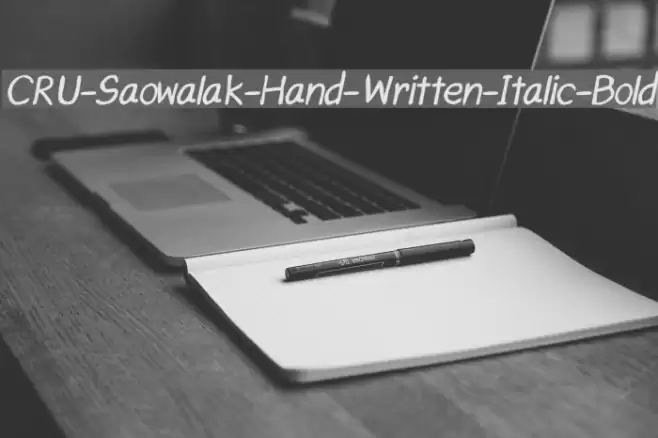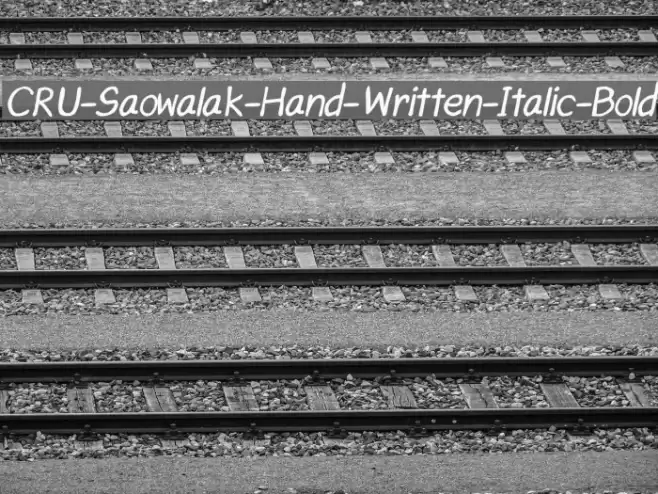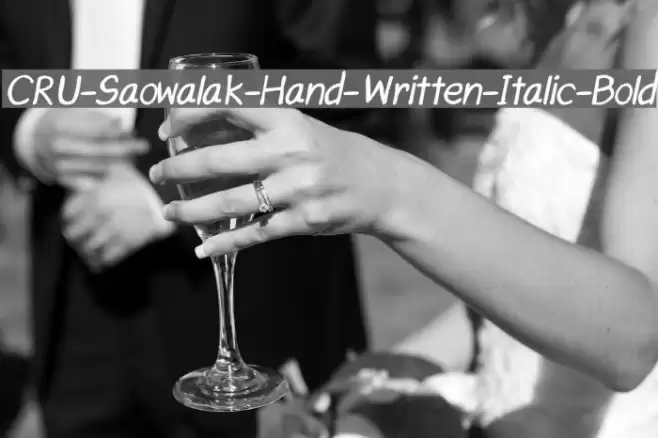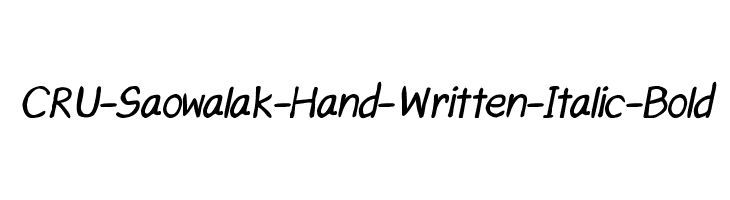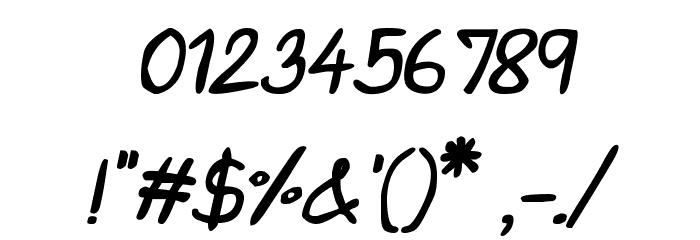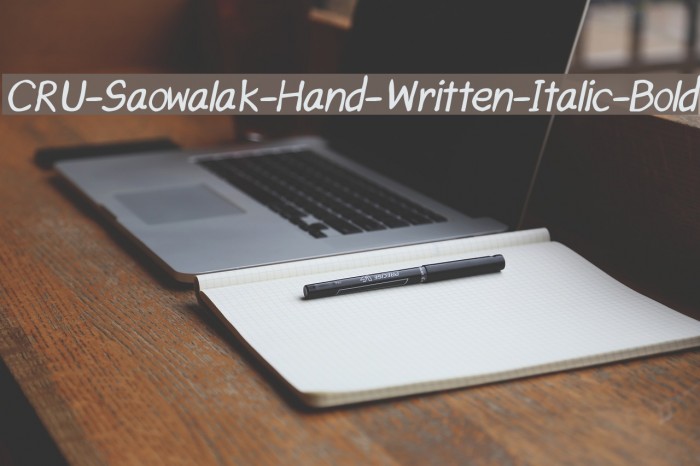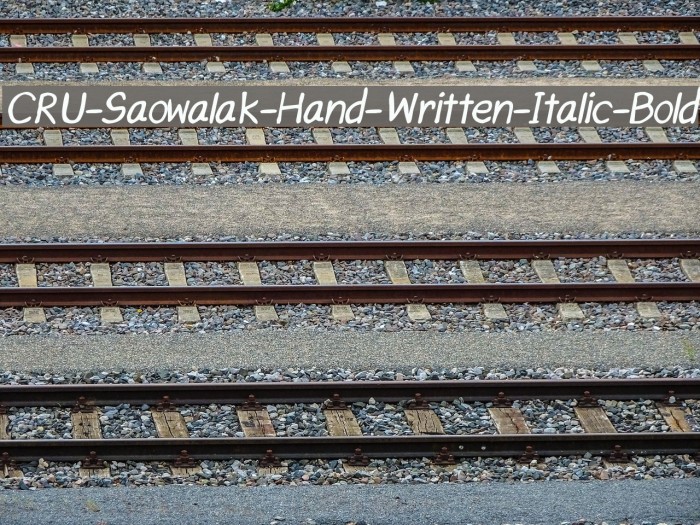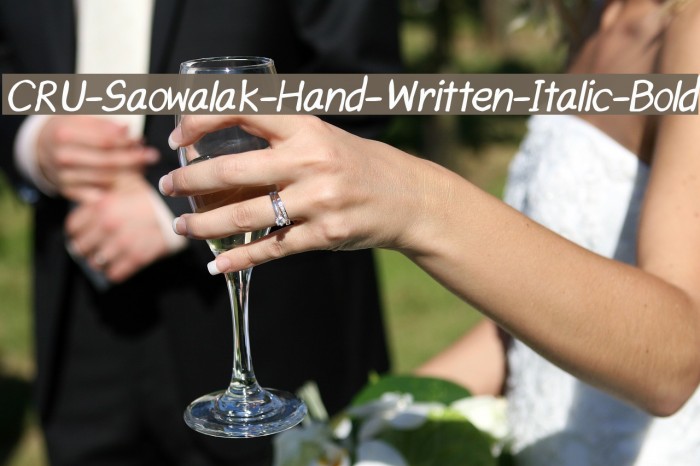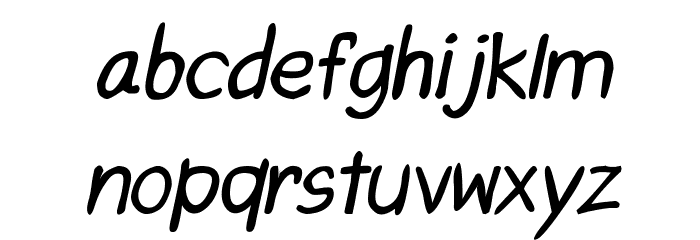
CRU-Saowalak-Hand-Written-Italic-Bold Font
CRU-Saowalak-Hand-Written-Italic-Bold Description
This font exhibits a casual, handwritten style with a playful and informal appearance. The letters are slightly slanted, giving it an italicized look, and the strokes are bold, providing a strong presence on the page. The characters are well-formed with smooth curves and a consistent flow, reminiscent of natural handwriting. The uppercase and lowercase letters maintain a cohesive style, while the numerals and special characters are clearly defined and easy to read. This font's organic feel makes it suitable for projects that require a personal touch.
A bold, italic, handwritten font with a casual and playful style from Uncategorized fonts.
- Proposed Projects: Ideal for greeting cards, personal invitations, casual branding, and social media graphics.
- Overall Style: Casual
- Use Case: Headlines, Logos, Invitations